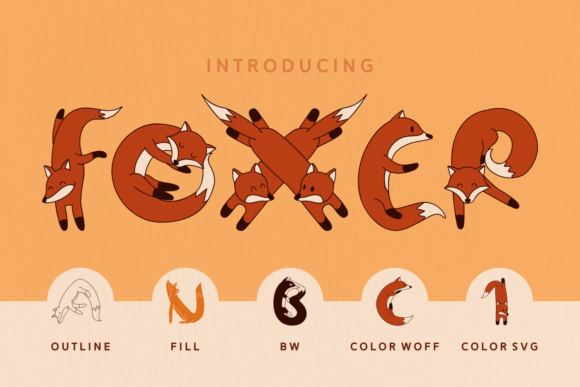
Introducing Foxer Font: The Playful and Adorable Display Font for Your Creative Projects
Are you looking for a font that can add a touch of playfulness and cuteness to your designs? Look no further than Foxer Font, a gorgeous and playful display font featuring incredibly adorable foxes. With its playfully rounded characters, Foxer Font is perfect for creating stunning animal- or wood-themed art, making it an ideal choice for spring-inspired designs.
What Makes Foxer Font So Special?
Foxer Font is more than just a font – it’s a creative tool that can help you bring your design ideas to life. Here are some of the key features that make Foxer Font so special:
- Adorable Fox Illustrations: Foxer Font features incredibly adorable fox illustrations that are sure to capture the hearts of your audience. Each character is carefully designed to showcase the playful and cute nature of foxes.
- Playfully Rounded Characters: The characters in Foxer Font are playfully rounded, giving them a soft and friendly appearance. This makes Foxer Font perfect for designs that require a touch of whimsy and playfulness.
- Multiple Font Versions: Foxer Font comes in three different versions: filled, outlined, and black-and-white. This allows you to experiment with different design ideas and add a unique touch to your creations.
The Perfect Font for Animal- or Wood-Themed Art
Foxer Font is specifically designed for creating stunning animal- or wood-themed art. The font’s playful and adorable illustrations make it perfect for designs that feature foxes, forests, and other woodland creatures. Whether you’re creating a logo, poster, or social media graphic, Foxer Font is sure to add a touch of magic to your design.
Here are some design ideas that Foxer Font is perfect for:
- Spring-Inspired Designs: Foxer Font is perfect for spring-inspired designs, such as Easter or Mother’s Day promotions.
- Woodland Creature Illustrations: Foxer Font is ideal for illustrations that feature woodland creatures, such as foxes, rabbits, and squirrels.
- Outdoor or Nature-Themed Designs: Foxer Font is perfect for outdoor or nature-themed designs, such as camping or hiking promotions.
Tips for Using Foxer Font in Your Designs
Here are some tips for using Foxer Font in your designs:
- Experiment with Different Font Versions: Try out the different font versions to see which one works best for your design.
- Pair with Other Fonts: Pair Foxer Font with other fonts to create a unique and interesting design.
- Use in Combination with Images: Use Foxer Font in combination with images of foxes or other woodland creatures to create a cohesive design.
Foxer Font is a gorgeous and playful display font that is perfect for adding a touch of cuteness and playfulness to your designs. With its adorable fox illustrations and playfully rounded characters, Foxer Font is ideal for creating stunning animal- or wood-themed art. Whether you’re a designer, artist, or DIY enthusiast, Foxer Font is a must-have font for your creative projects.
Key Features of Foxer Font
- Adorable fox illustrations
- Playfully rounded characters
- Multiple font versions (filled, outlined, and black-and-white)
- Perfect for animal- or wood-themed art
- Ideal for spring-inspired designs